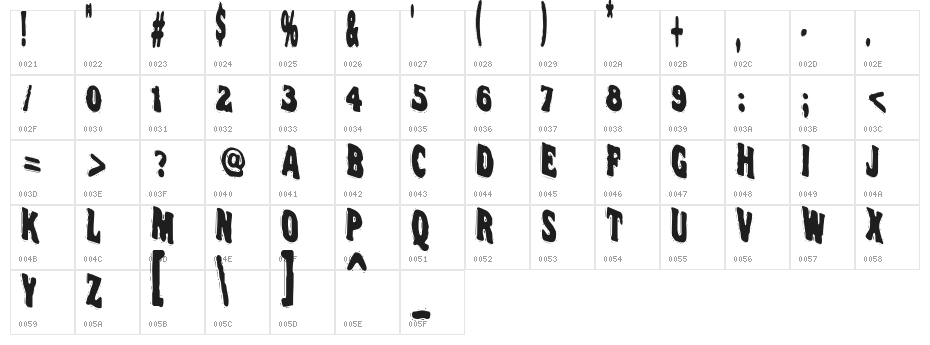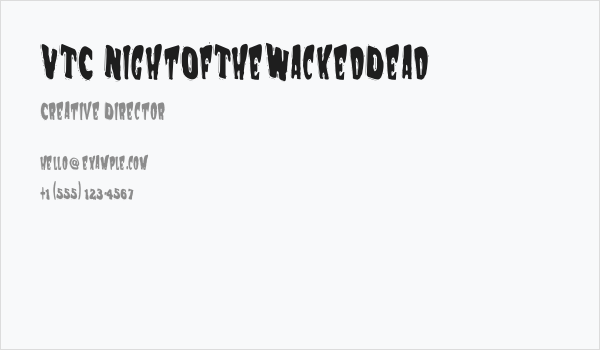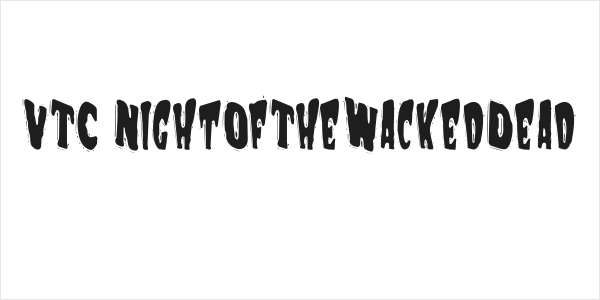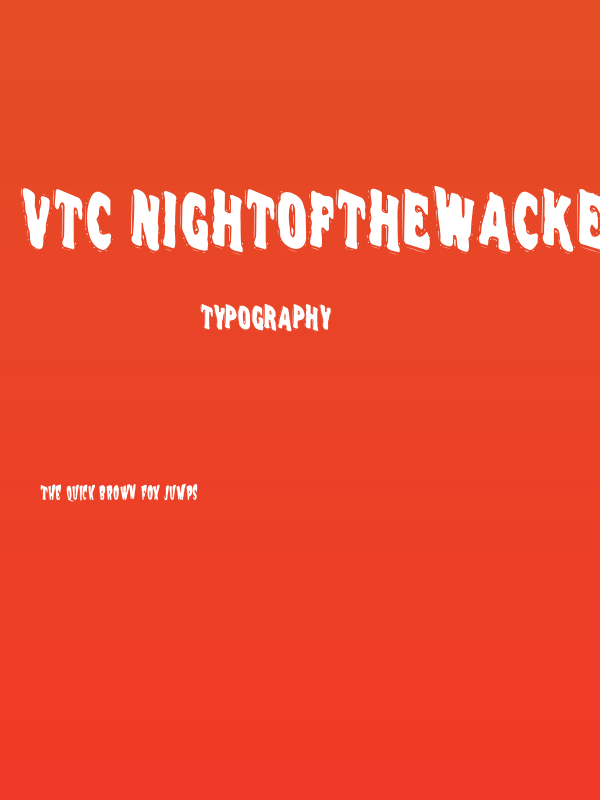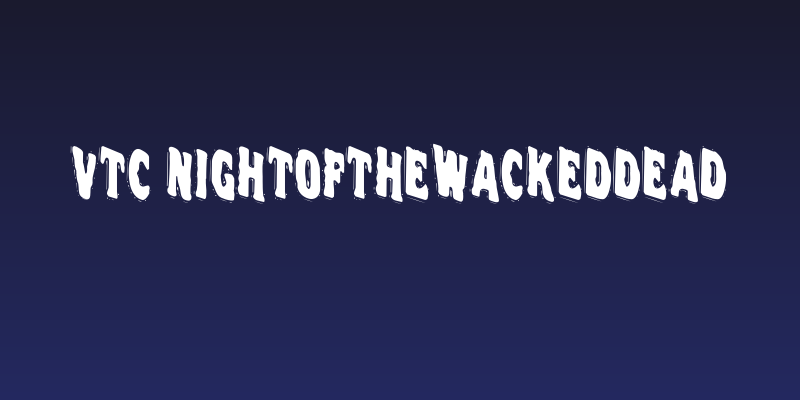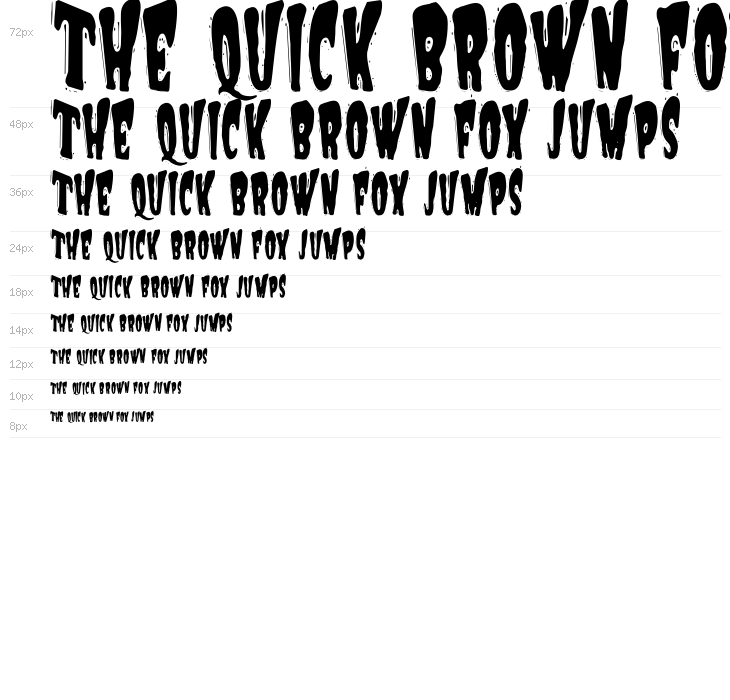
VTC NightOfTheWackedDead Font
VTC NightOfTheWackedDead Description
This font features a bold and dramatic style with a distressed, horror-themed appearance. The characters are irregularly shaped, giving a sense of movement and chaos. The uppercase and lowercase letters maintain a consistent height, while the numbers and special characters follow the same distressed aesthetic. The font's unique style makes it ideal for projects that require a spooky or eerie atmosphere, such as Halloween-themed designs or horror movie posters. Its boldness ensures that it stands out, even in busy compositions.
| Proposed Projects | Ideal for Halloween designs, horror movie posters, themed party invitations, and spooky event branding. |